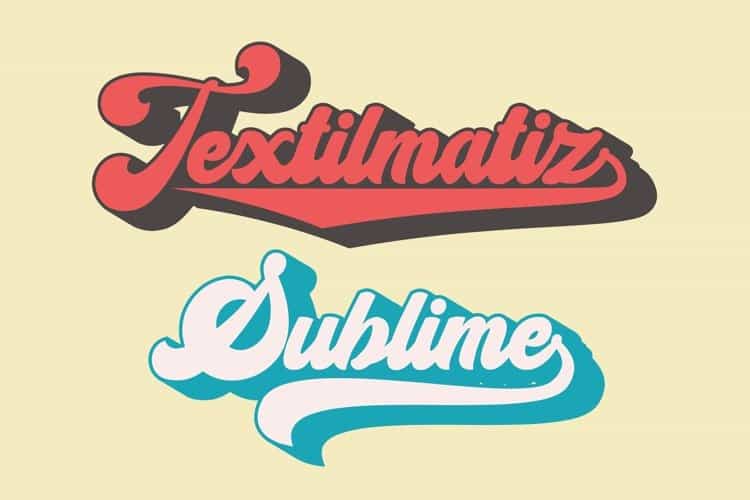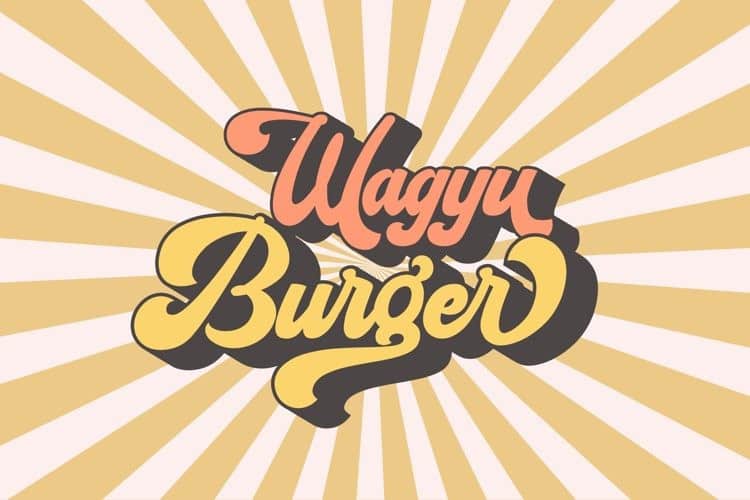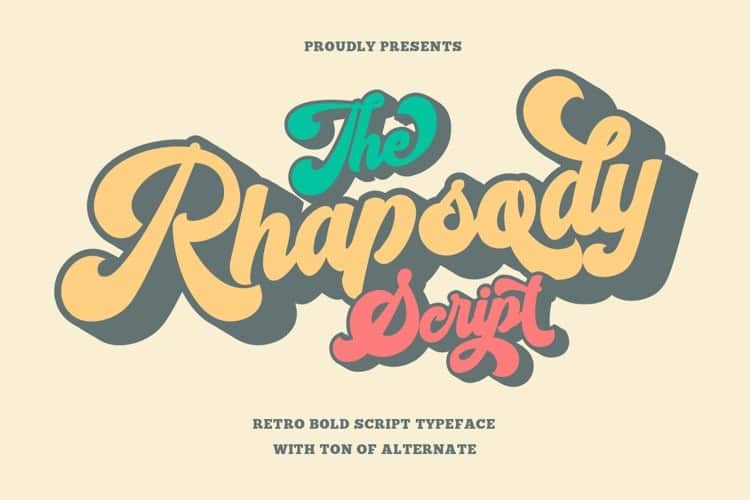
Rhapsody Script Font
Rhapsody Script Font is a retro bold script style font, come with clean and rough font version. Inspired from retro typography and lettering in the 70’s and 80’s combine with bold typography style. Made from font designer named Bluetype. This font is a bold script typeface inspired by the vintage design from 70-ish. This retro typeface is really perfect who needs a vintage design for logotype, t-shirt, vintage badge, retro quotes branding, packaging, quote etc.